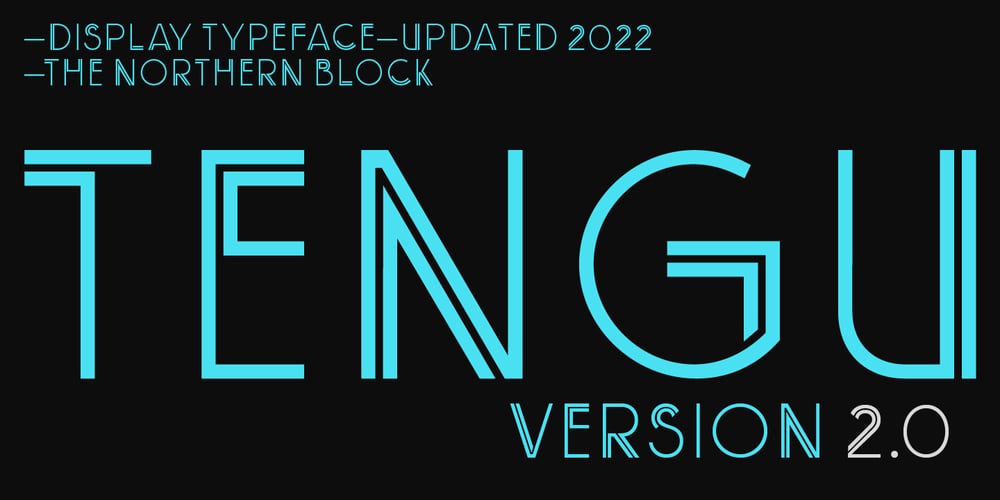
Tengu Font Family was designed by Jonathan Hill and published by The Northern Block. Tengu contains 1 styles and family package options. Tengu is a multiline display typeface digitised and expanded from Gustavo Pardo Sarmiento Tangui (1973). An intricate wirelike framework creates an elegant yet futuristic font ideal for apparel, books, t-shirts and posters. The font includes over 400 characters. Opentype features include digital numerals, lining figures, fractions and language support covering Western, South and Central Europe.